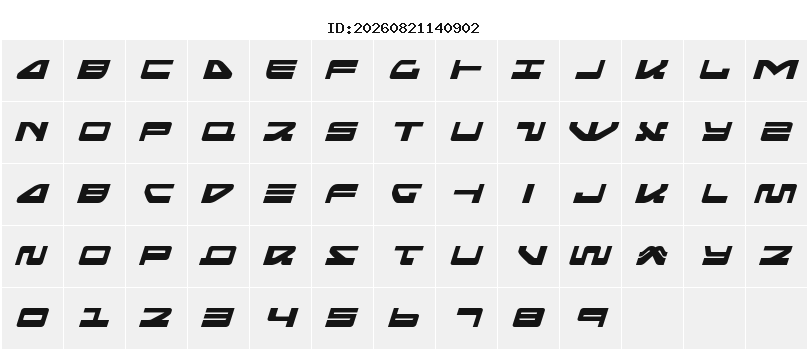
Searider Falcon Expanded Italic Preview
• Font Name: Searider Falcon Expanded Italic
• Font Style: Expanded Italic
• Full Font Name: Searider Falcon Expanded Italic
About Searider Falcon Expanded Italic.ttf
Searider Falcon Expanded Italic.ttf is a modern, elegant sans-serif font designed for ultimate readability and visual harmony. Perfect for branding, headlines, web design, and print materials.